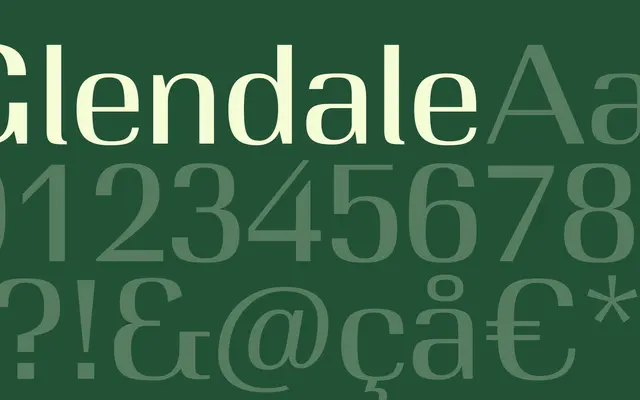
Glendale
A display typeface from Playtype with a cinematic, character-driven personality suited to editorial and narrative contexts.
Glendale carries a distinctly cinematic sensibility, with the foundry's copy evoking cycles of resistance and seduction through storytelling. The name and tone suggest a typeface with personality rather than utility at its core, positioned for editorial, cultural and entertainment contexts. Specific weight and style information is not available from the page.
The page copy and name suggest a characterful display typeface; insufficient technical detail to classify further, but the editorial, cinematic tone points to a display serif subcategory.